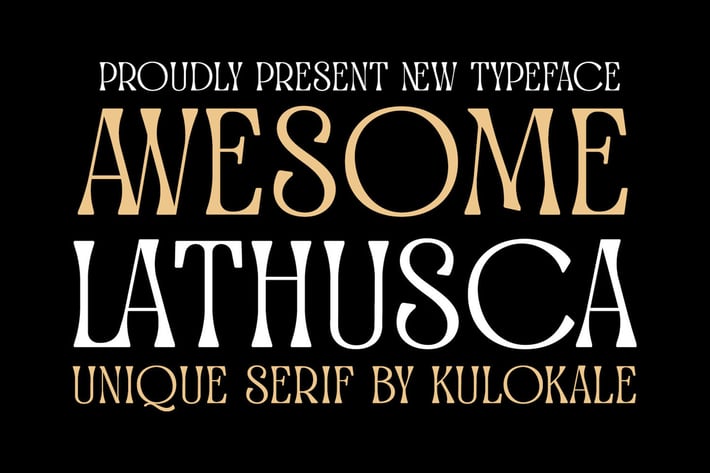
Awesome Lathusca Serif Font
Kulokale
Awesome Lathusca is a unique and stylish serif font. Awesome Lathusca is well-suited for advertising, branding, logotypes, packaging, titles, headlines and editorial design.
Awesome Lathusca is perfect for many different projects such as logos & branding, invitation, stationery, wedding designs, social media posts, advertisements, printed quotes, product packaging, product designs, label, photography, watermark, special events or anything.